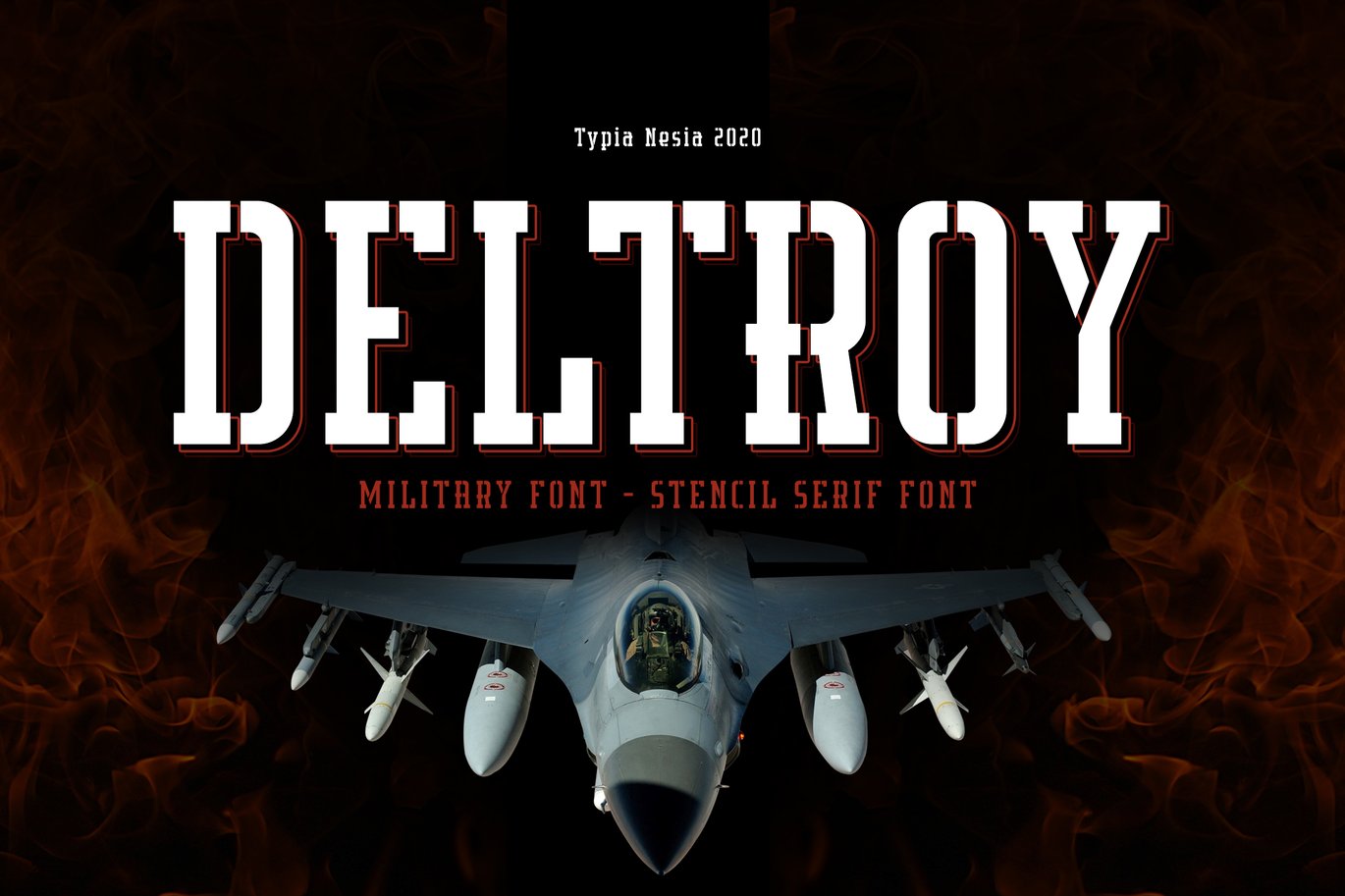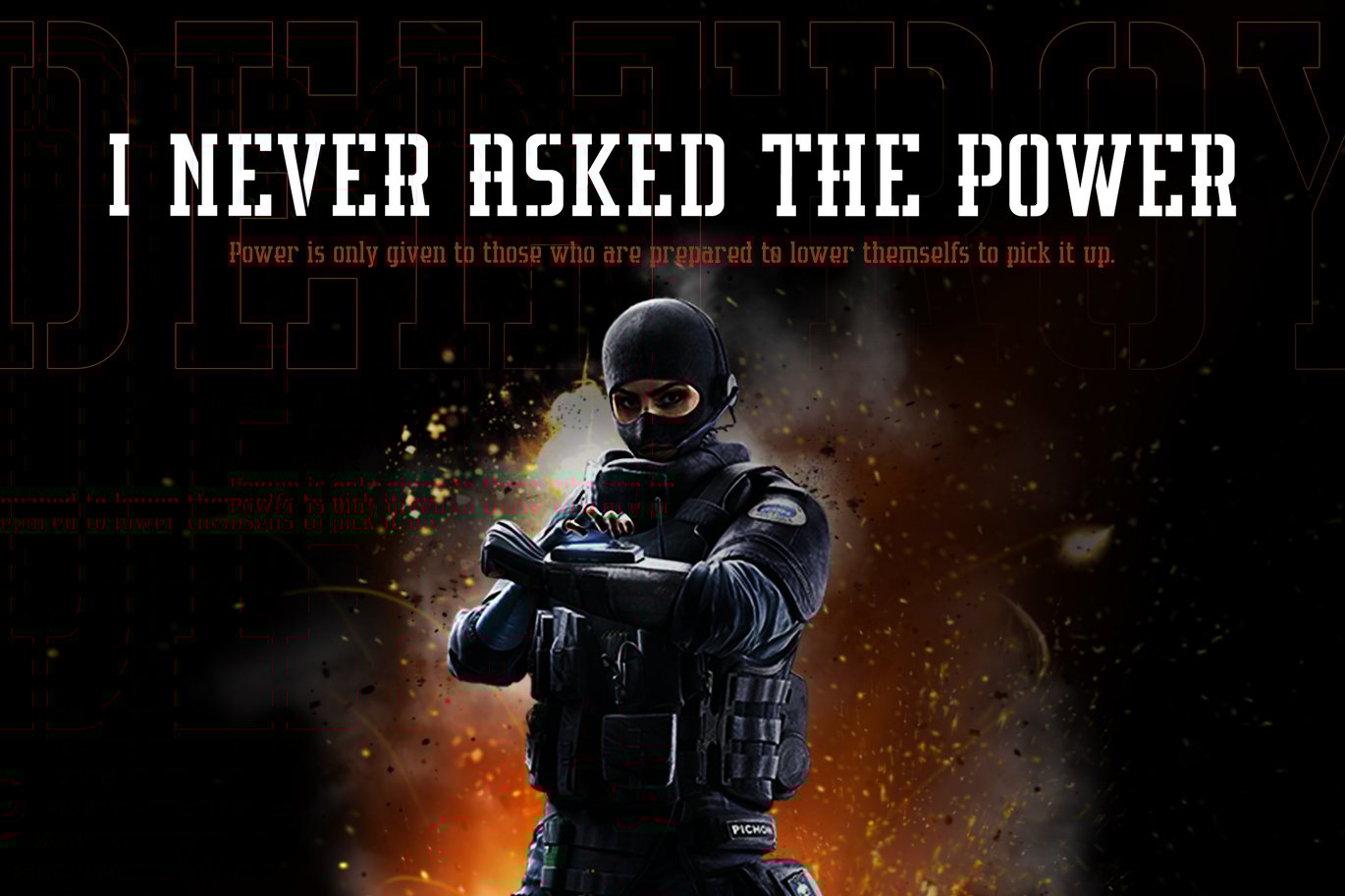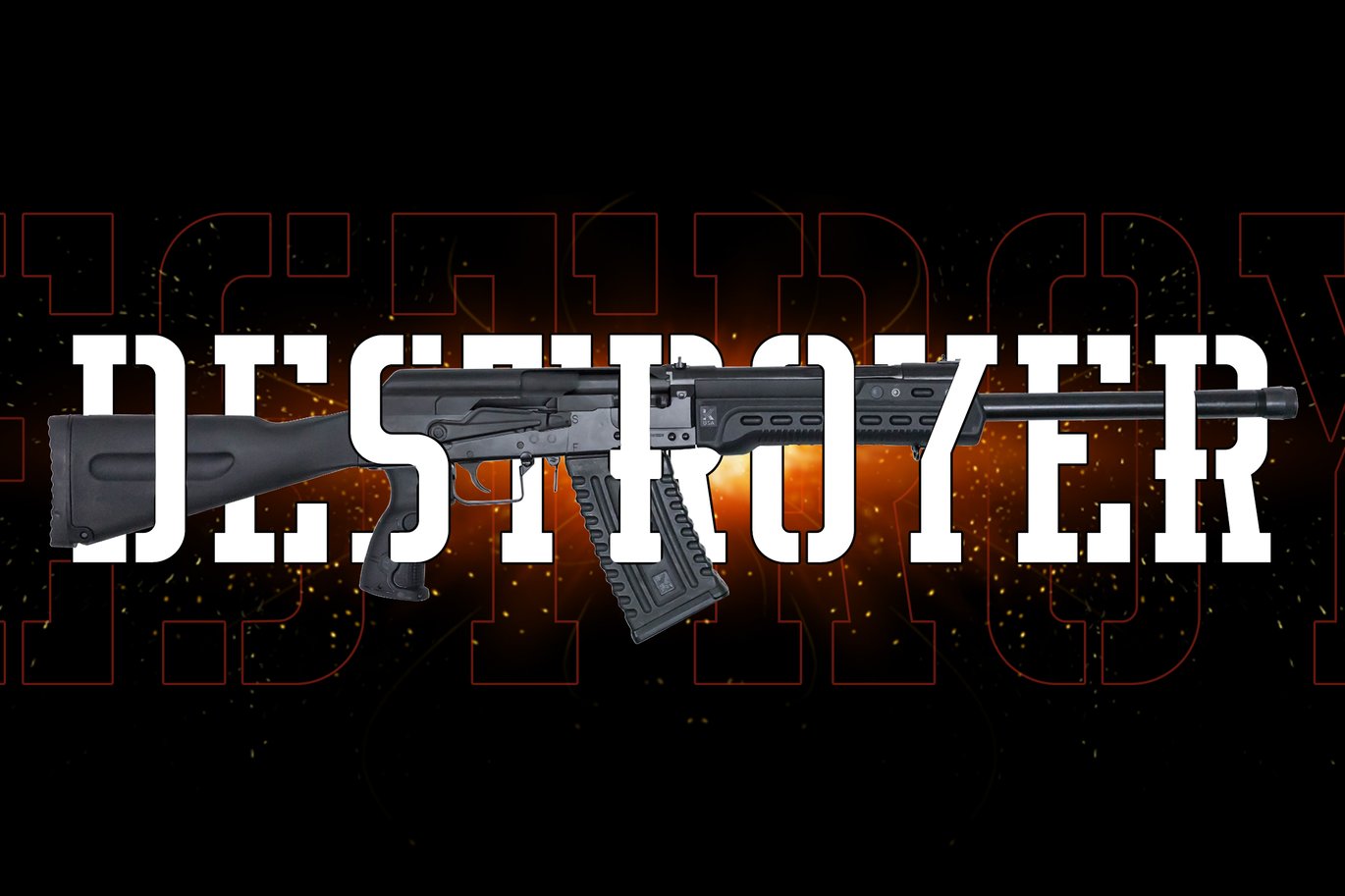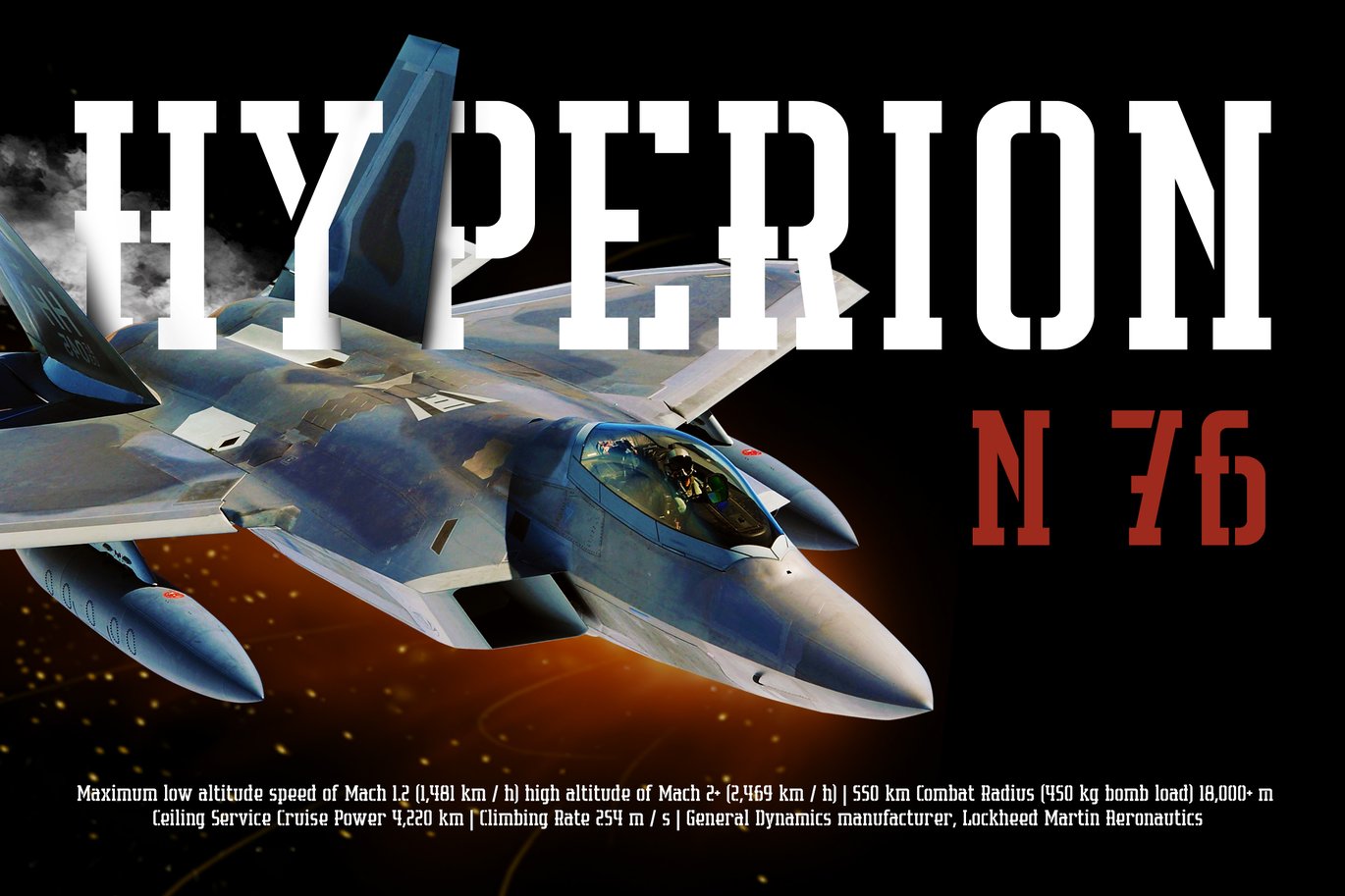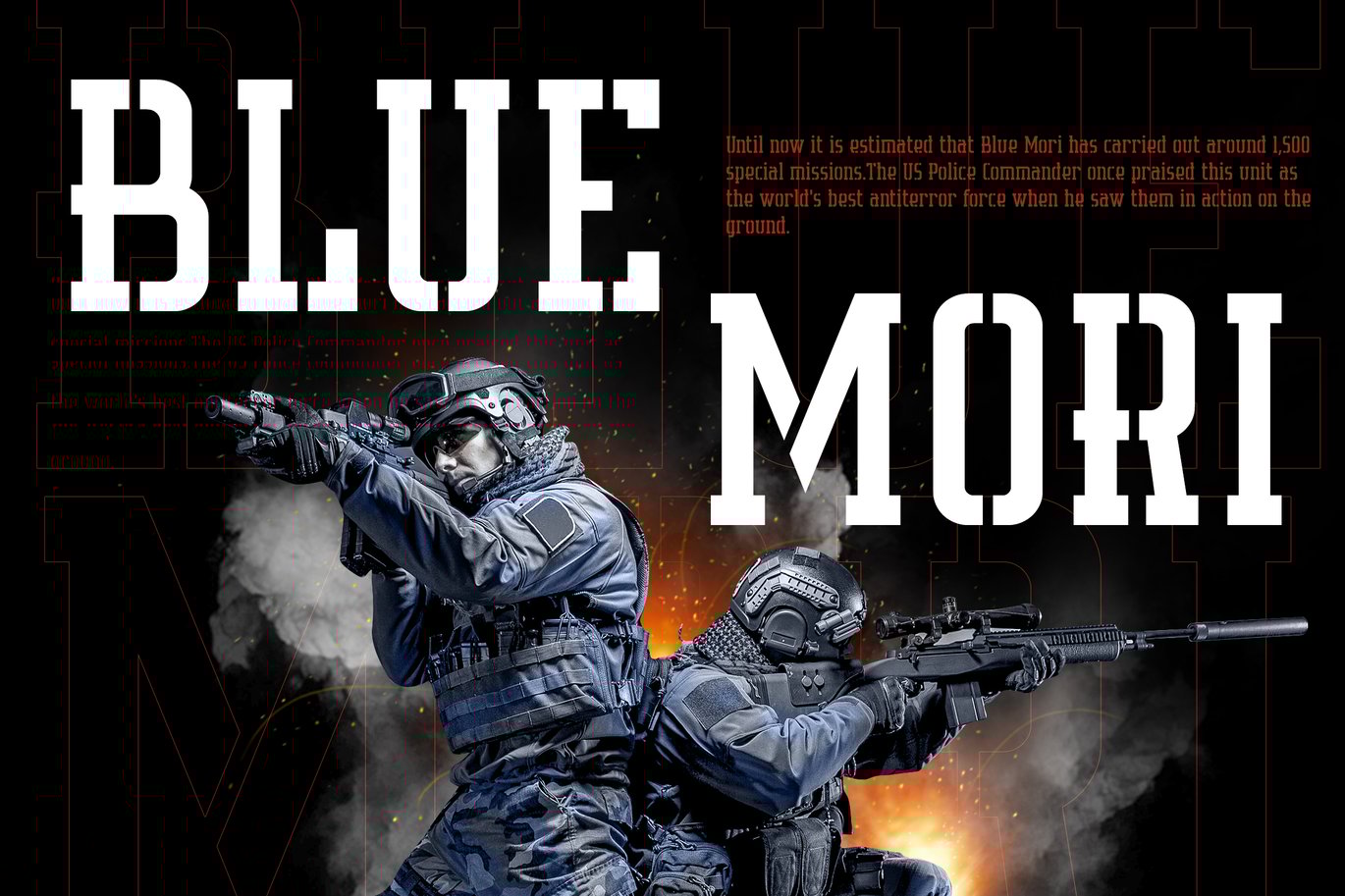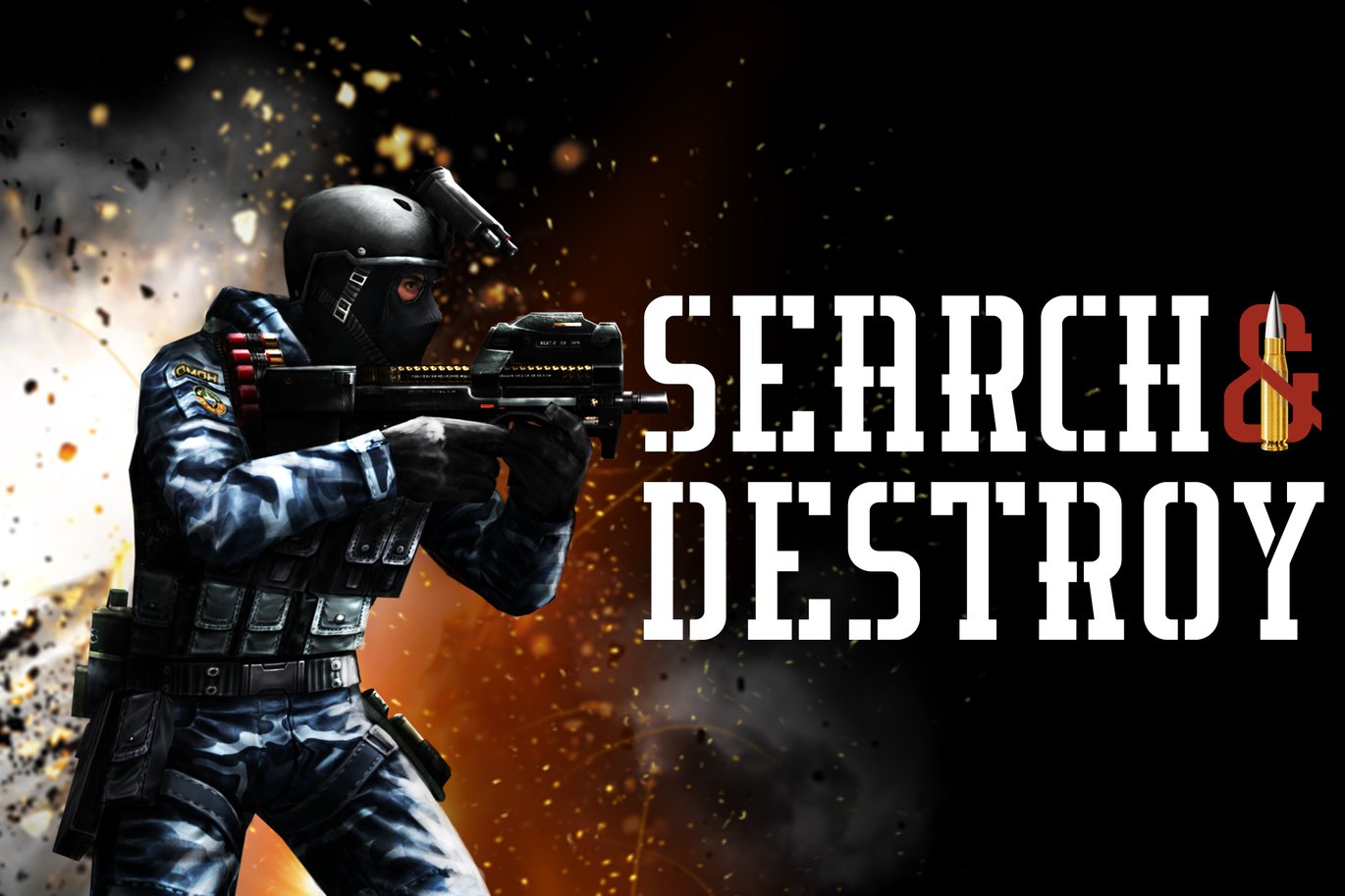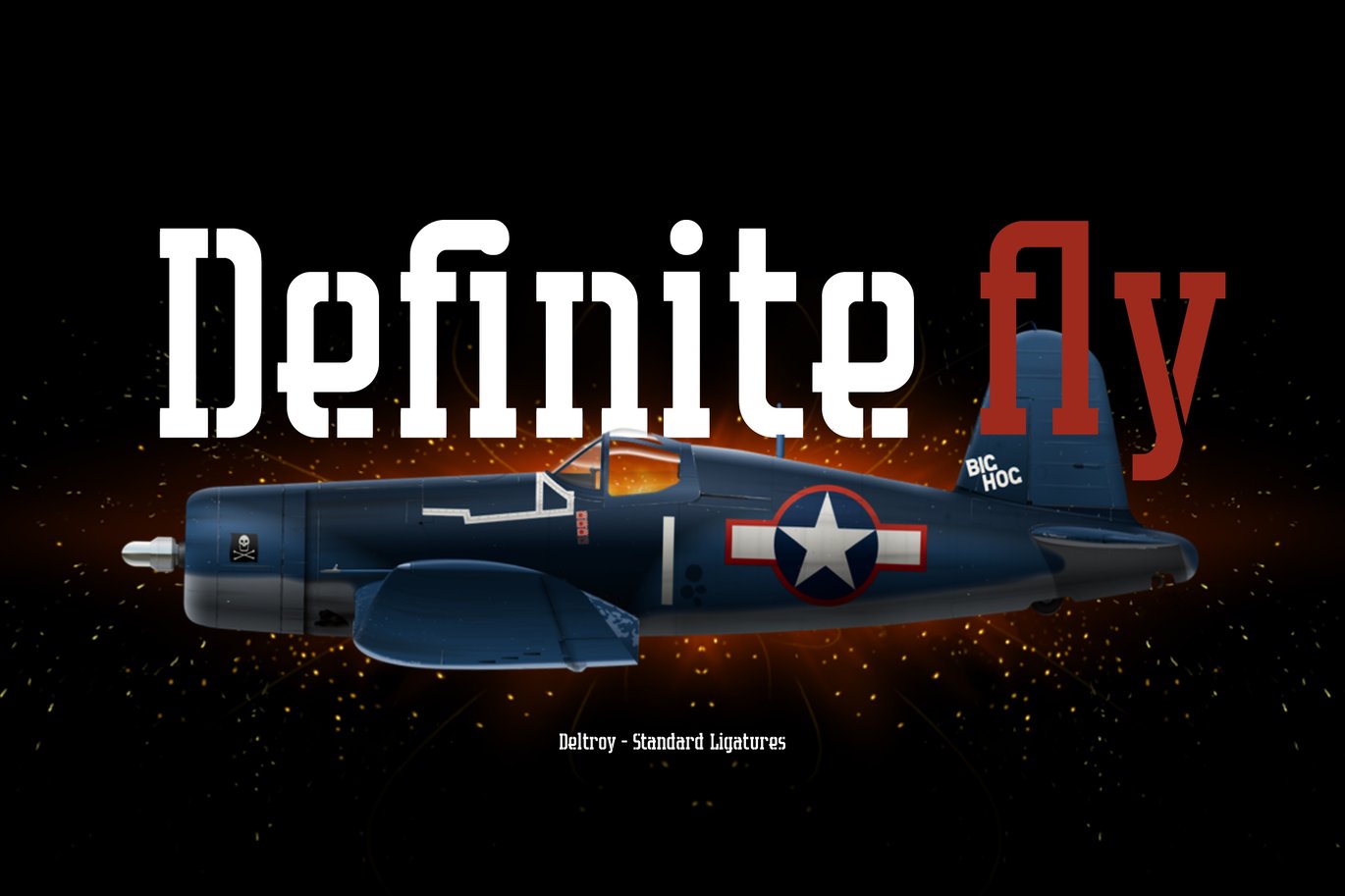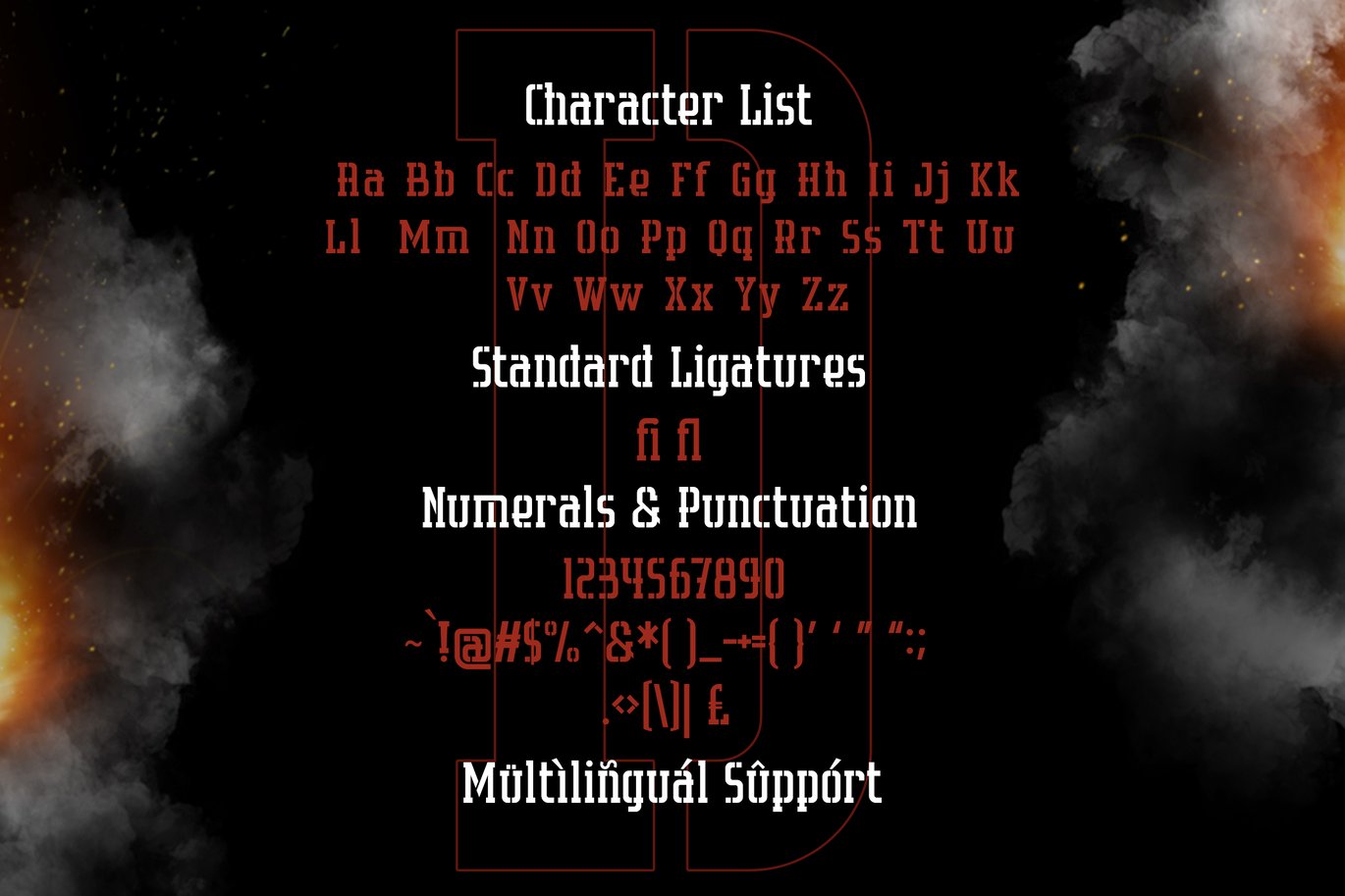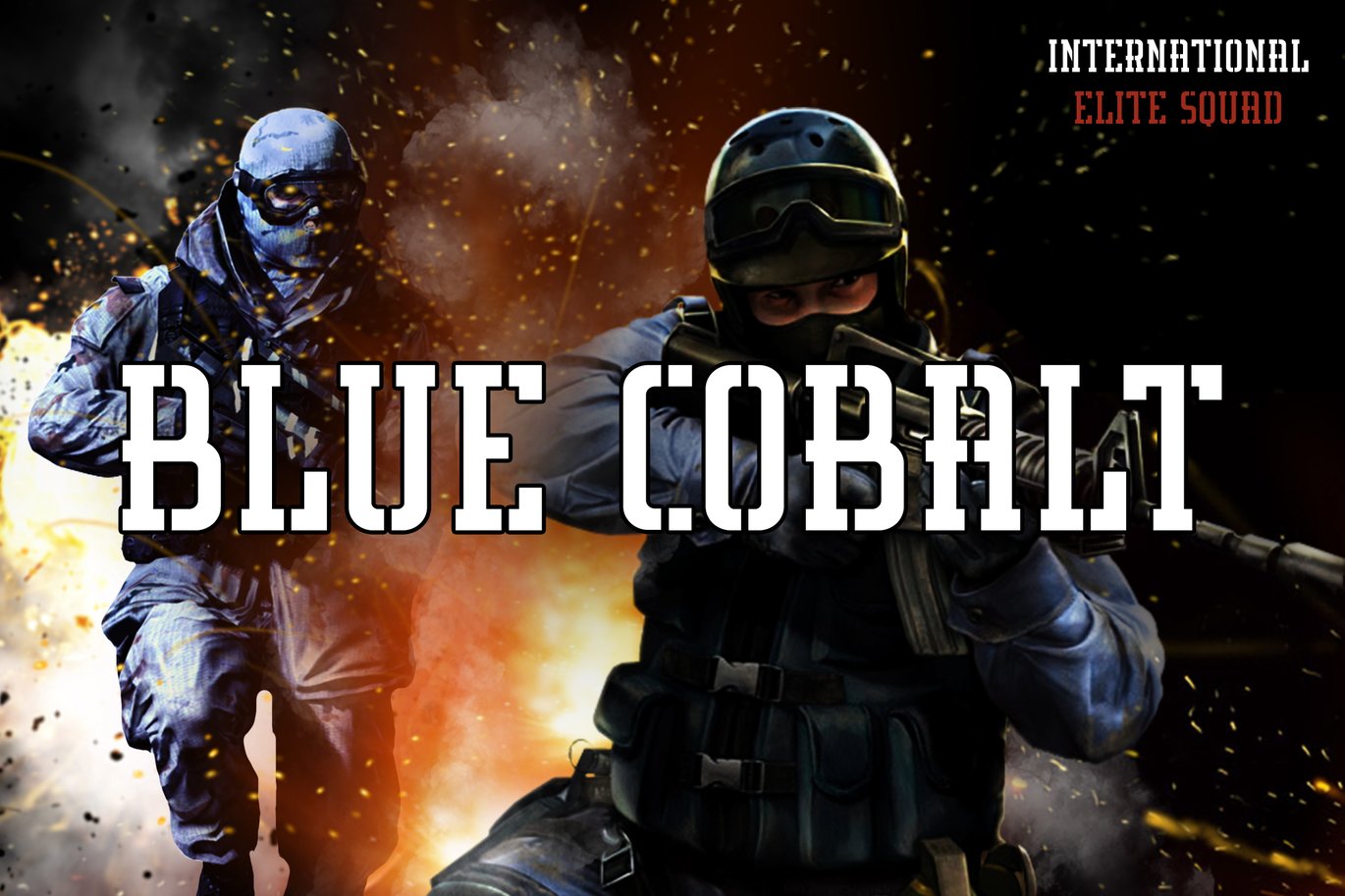
Deltory – Military Font
Deltory – Military Font – Stencil Slab Serif – Display Font
Deltory – Military font is perfect for your up coming projects. Such as logo branding, editorial design, fashion, stationery design, sport design, blog design, modern advertising design, card invitation, art quote, home decor, book/cover title, special events and any more.